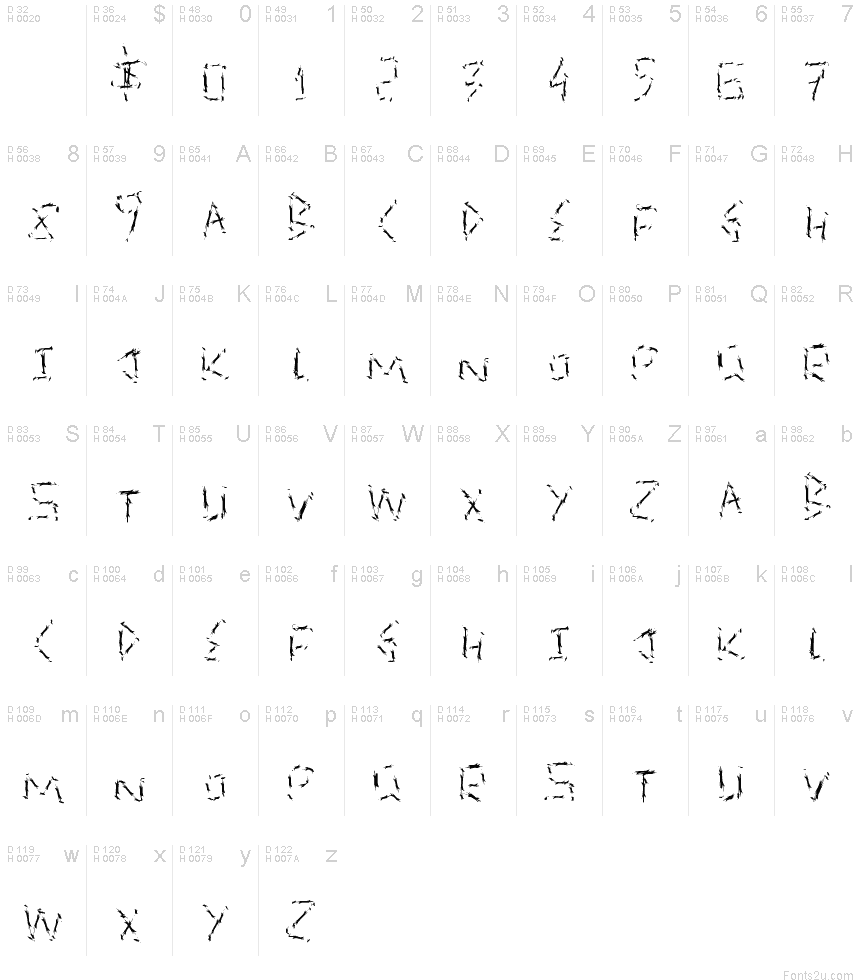
Quick Slash by Xerographer Fonts is a free horror display font with letters cut into sharp, splintered strokes. Ragged gaps and hooked shards break the forms apart, producing a nervous silhouette that feels scratched rather than printed. The uneven construction keeps each character tense and unpredictable.
Horror and dark fantasy are its clearest territory, especially for film posters and game title screens built around menace or supernatural violence. Its torn, thorn-like marks can echo claw scratches, shattered wood, or spiky creature artwork, making the lettering part of the scene. Album covers and Halloween event graphics also suit this distressed, hostile treatment.